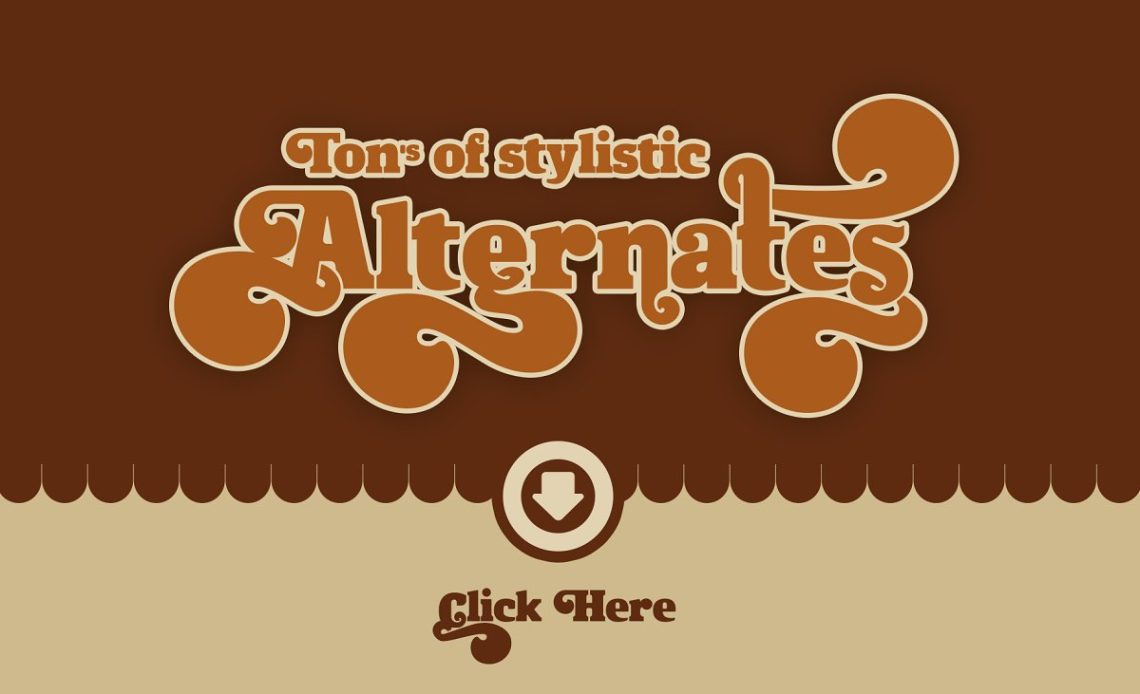
Looking for a unique and captivating font for your vintage designs? Look no further than Ventabold, the retro groovy font style created by Fikri Ar. With its open type features, including stylistic alternates and ligatures, this font is perfect for a variety of projects, from logos and headings to magazine covers and album artwork.
Not only does Ventabold come with tons of alternate glyphs to play with, including swashes, but it is also incredibly versatile. Use it for branding, book covers, game titles, apparel design, quotes, invitations, flyers, posters, greeting cards, product packaging, printed quotes, and more. And with its bold, pop art display style, this font is sure to catch the eye of anyone who sees it.